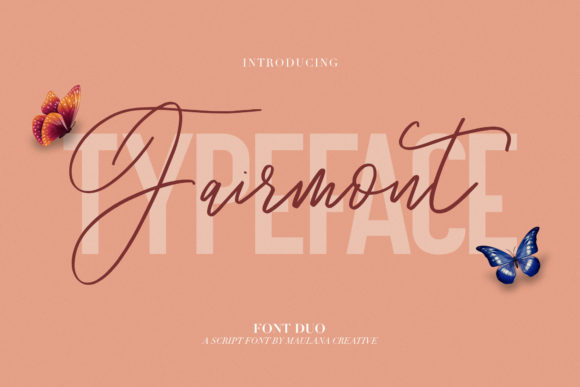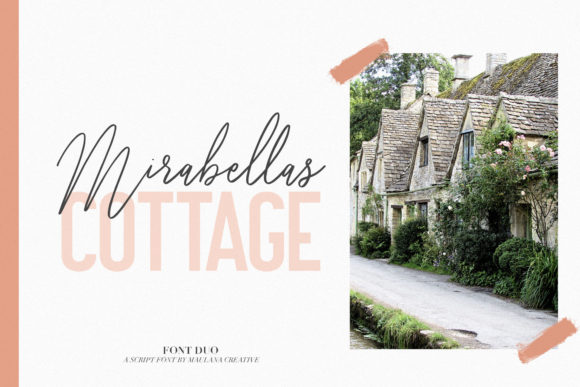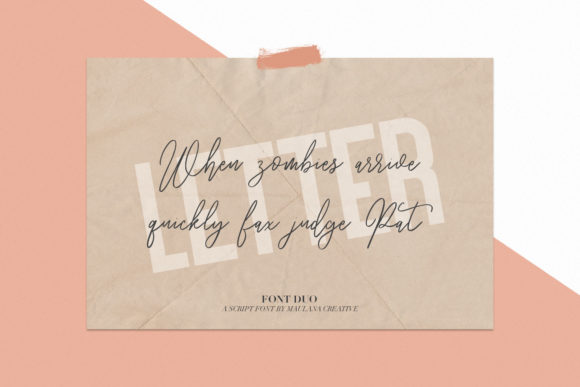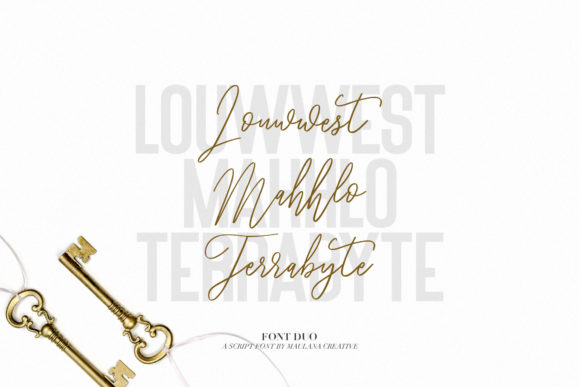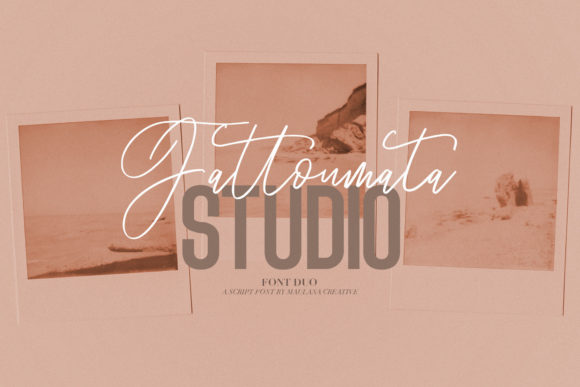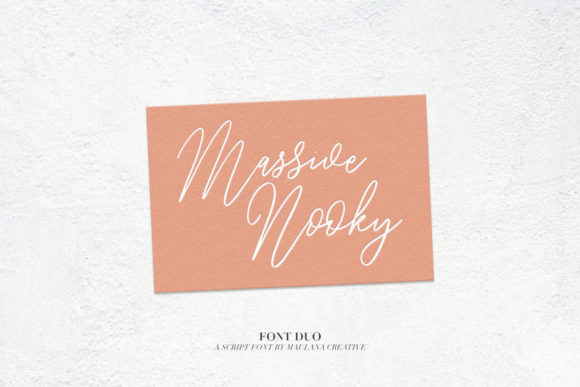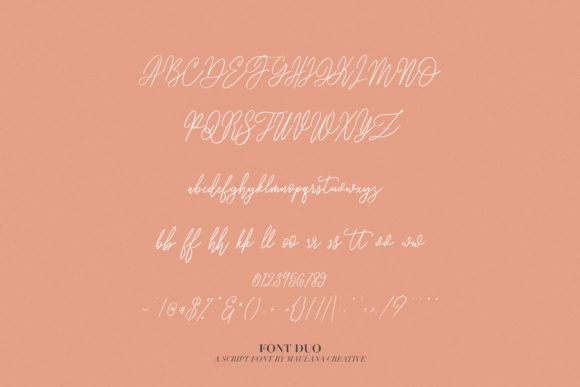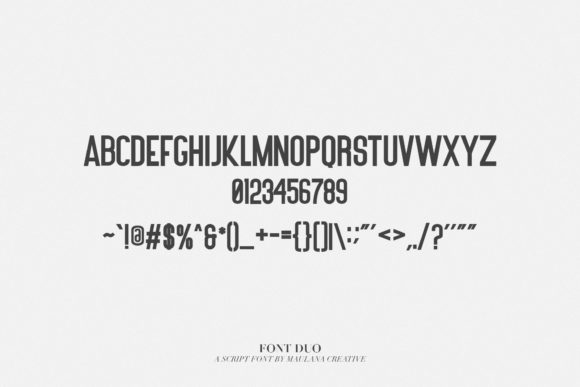
HomeScript FontsFairmont Duo Font Script Fonts Fairmont Duo Font FacebookXPinterestWhatsApp Fairmont Duo Font Poster 2 Fairmont Duo Font Poster 3 Fairmont Duo Font Poster 4 Fairmont Duo Font Poster 5 Fairmont Duo Font Poster 6 Fairmont Duo Font Poster 7 Fairmont Duo Font Poster 8 About Fairmont Duo Font Fairmont is the perfect font duo to give your designs an authentic and handmade feel. DOWNLOAD ON CREATIVE FABRICAThis font is sold and delivered by Creative Fabrica. Font Canyon may earn a commission if you buy through this link. People also explored Bucoran Font Crayond Miniature Font Stefina Signature Font Amithen Font Big Pixel Font True Love Glossy Night Font Modern Designer Font 385 0 TagsFairmont Duo Font Previous articleBico De Pena FontNext articleCartame Font LEAVE A REPLY Cancel reply Comment: Please enter your comment! Name:* Please enter your name here Email:* You have entered an incorrect email address! Please enter your email address here Website: Save my name, email, and website in this browser for the next time I comment. Personal Use Free Nickainley Personal Use Free Read more about this font Crellia Script Personal Use Free Read more about this font Wallabys Junior Personal Use Free Read more about this font Happy Rabbit Personal Use Free Read more about this font BLOG Top 10 Handwritten Fonts That Elevate Your Designs Top 10 Handwritten Fonts That Will Elevate Your Designs Handwritten fonts bring a warm, personal touch to every creative project. Whether you're designing logos, invitations,... 5 Fonts That Will Dominate Design Trends in 2026 The 10 Best Handwriting Fonts to Add Personality to Your Designs Using Fonts in Digital Marketing: Tips to Strengthen Your Brand Identity